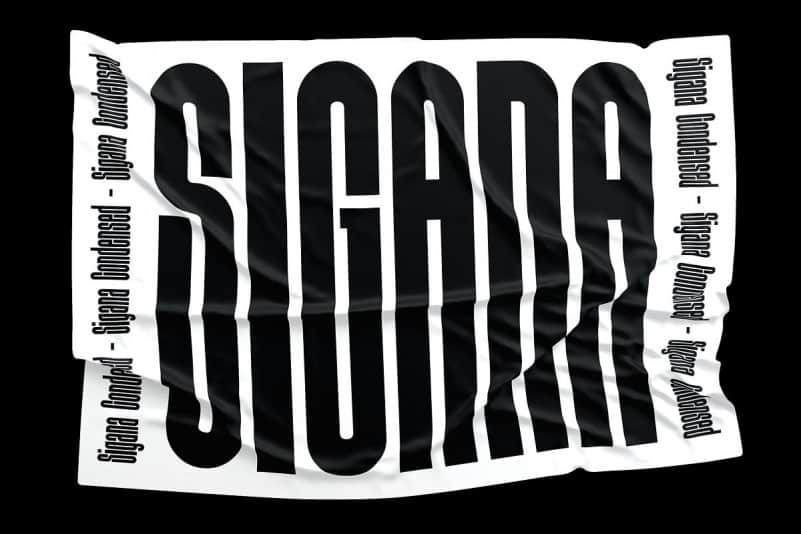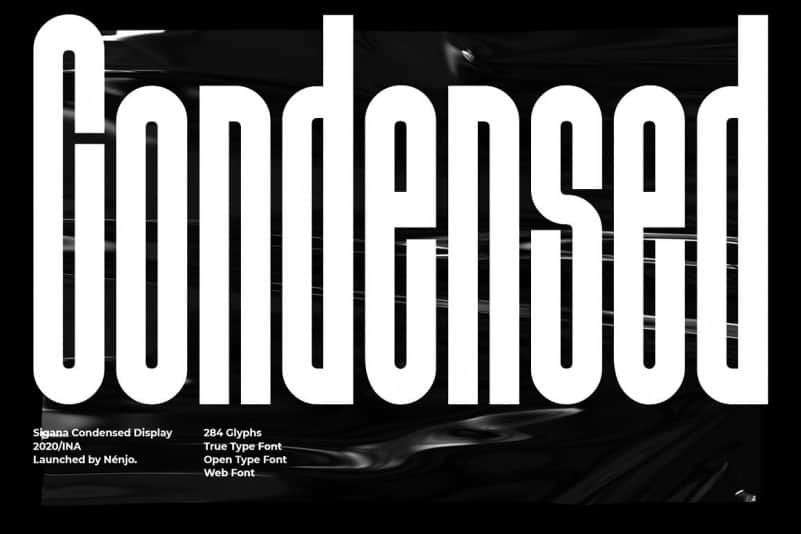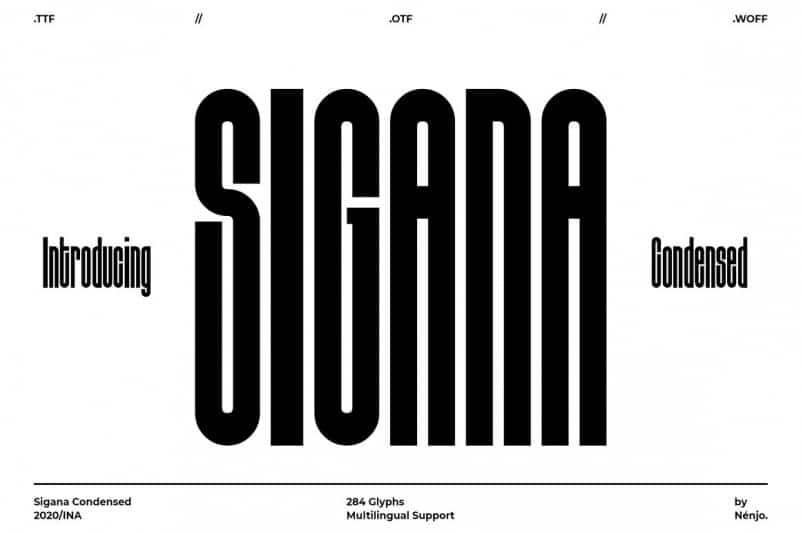
Sigana Display Font this is a display sans serif type, this font is suitable for use with premium, elegant, luxury needs. Made from font designer named nénjo. It’s made specially for display purposes. With a very tall yet simple form, Sigana Condensed brings a minimalist and modern looks to your design. Perfect for branding, titles, logos, stationery, body texts, and more.